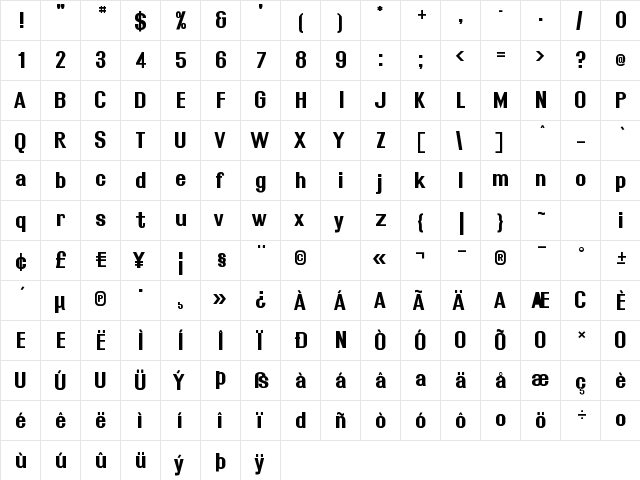
Rollout Bold
Design Context for Rollout Typeface
Rollout takes a measured approach to typography — its balanced proportions and neutral character make it a reliable workhorse for both digital and print work. The heavy weight commands attention and anchors typographic hierarchies.